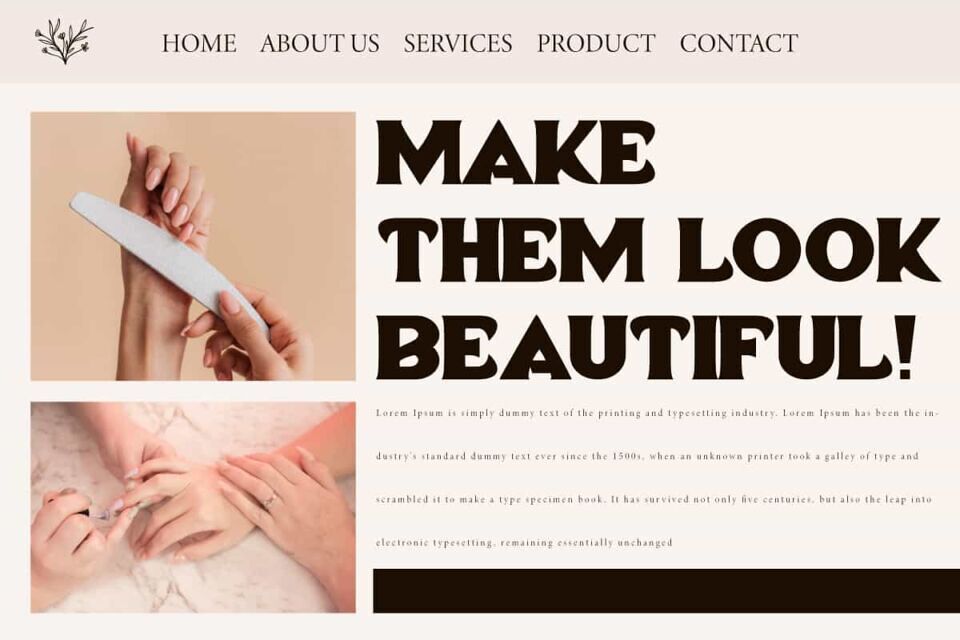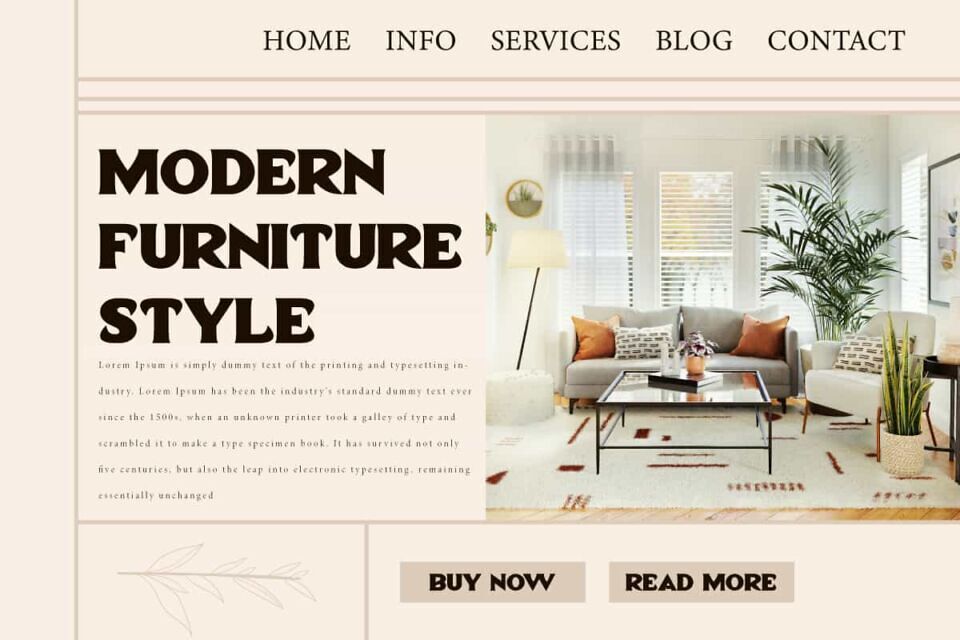
Roman Magazine Font
Roman Magazine is a serif display font that combines softness into a strong and harmonious typeface. This font has a bold character and can be combined with other font types to give a confident impression. This font is suitable for any design, such as branding, brochure, label, logo design, magazine cover, mockup template, packaging, poster, quotes, signage, stationery, website, and more!
Roman Magazine Font includes a complete set of Uppercase and Lowercase Basic Characters, Numbers, Punctuation, and Symbols. This font has a unique style & modern look, very suitable for use in various industries, such as advertising, beauty product, boutique, cafe, craft, events or wedding organizer, photography, real estate, restaurant, spa, travel, and so on.
Designed by: VinType